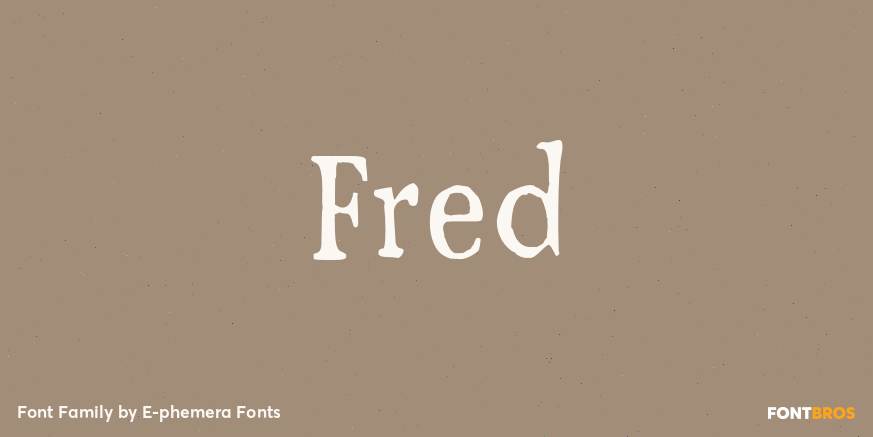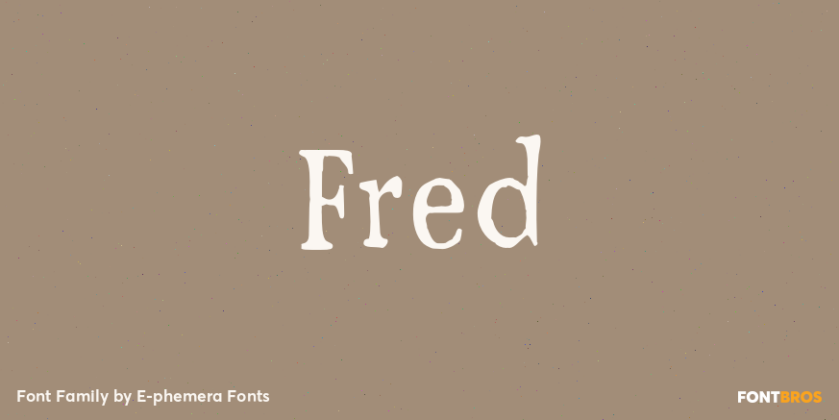
Fred
About Fred
The Fred family is based on the casual hand lettering of Fred G. Cooper: cover artist, cartoonist, and letterer for Life magazine in the 1920s and \’30s. His relaxed style captures the flavor of the Roaring Twenties, and the digital font was developed…